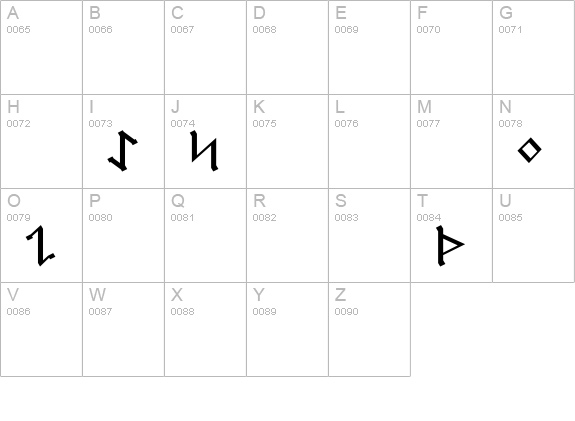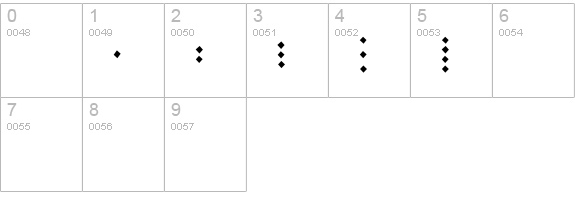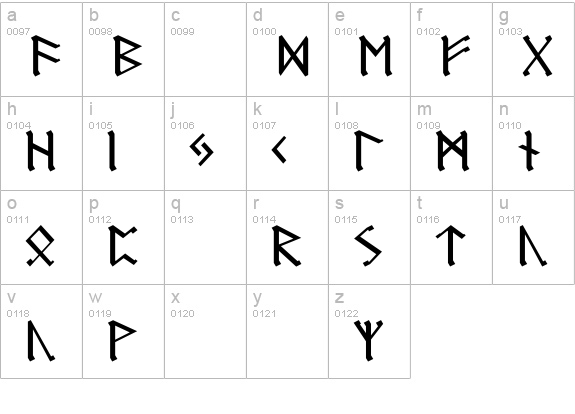
The Germanic Runes font is a captivating and ancient typeface inspired by the runic alphabets used by Germanic peoples in the early Middle Ages. Each character exudes a sense of mystery and history, making it perfect for projects that require a touch of vintage charm or a nod to Norse mythology. This unique font is meticulously crafted to bring the spirit of the runic scripts to modern design projects. And the best part? The Germanic Runes font is available for free download at FontsMarket.com! Embrace the power and beauty of these ancient symbols in your designs today.